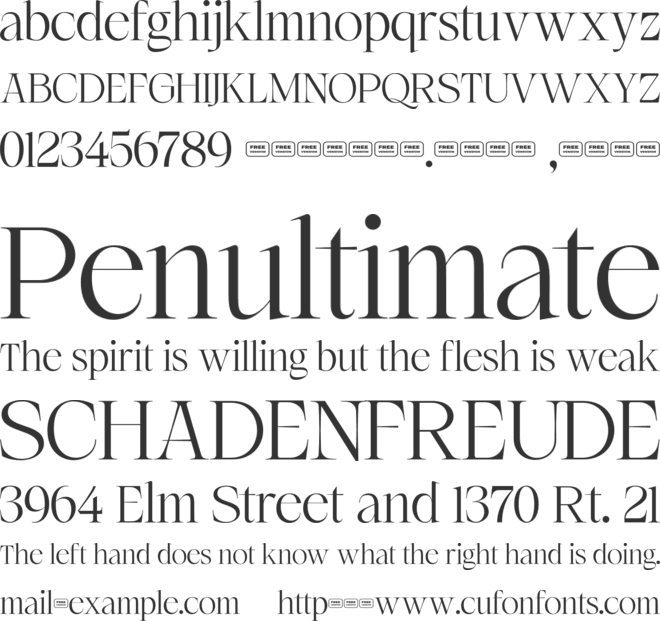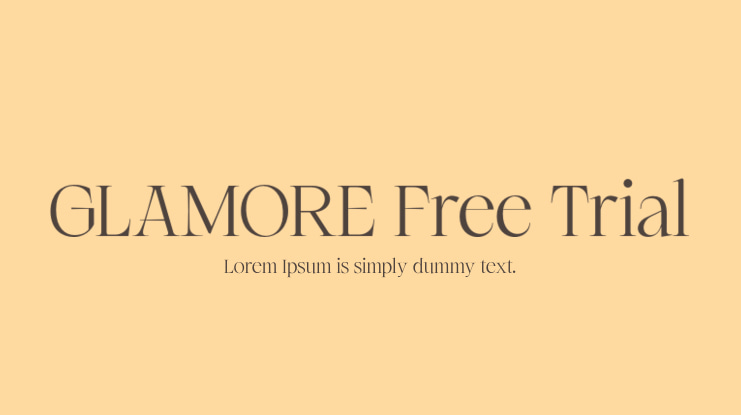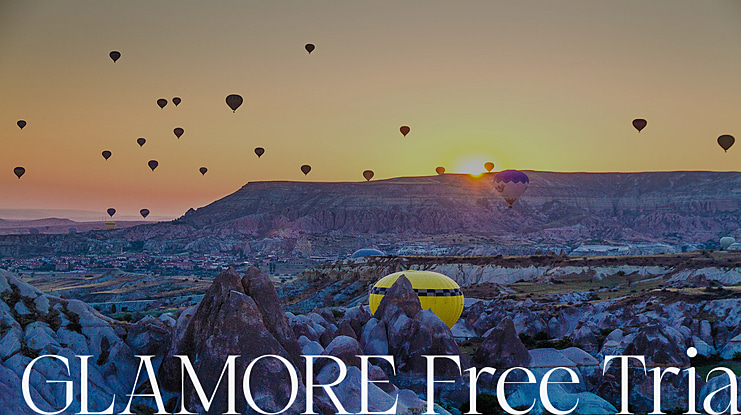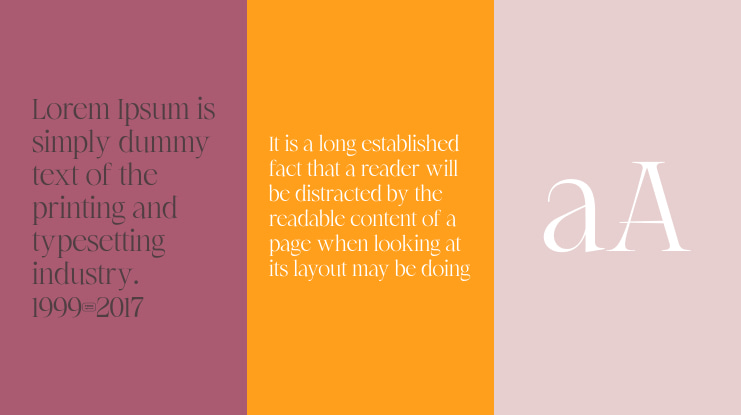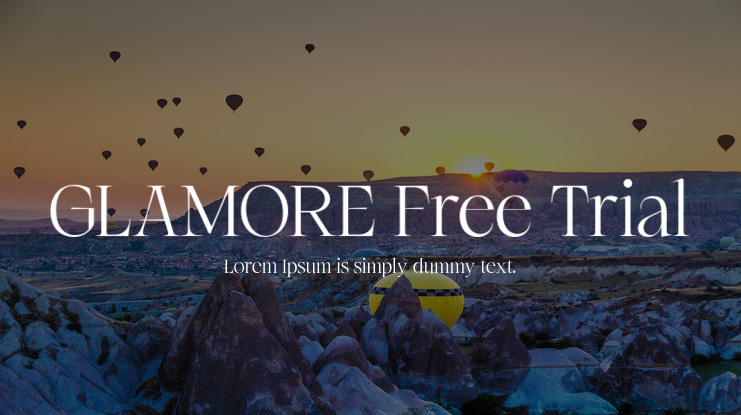
GLAMORE Free Trial Font
Glamore is a clean serif typeface that blends traditional influences into a contemporary aesthetic.
Elegantly crafted and easily be matched to an incredible large set of projects.
Use this font to achieve an exquisite, yet subtle look and maximum versatility.